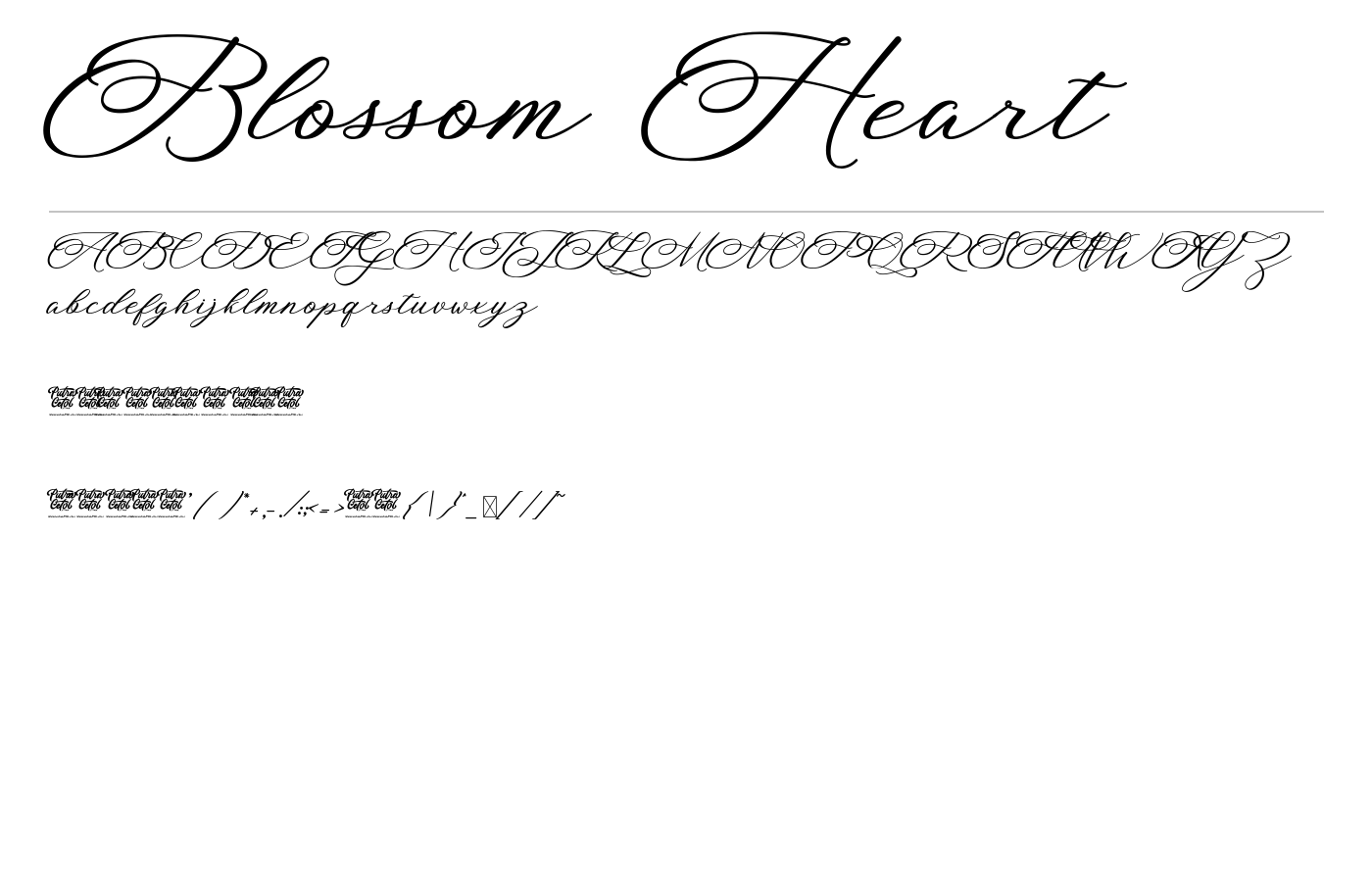
Blossom Heart is an elegant script font characterized by its delicate, flowing strokes and graceful flourishes, making it perfect for romantic or sophisticated designs. Its thin weight and high contrast between thick and thin lines create a refined, airy appearance, ideal for wedding invitations, luxury branding, and elegant headlines. This font’s ornate uppercase letters and smooth lowercase forms add a personal, handcrafted feel that enhances any project seeking a touch of charm and elegance.
Blossom Heart Font
About Blossom Heart Font
| Font family | Blossom Heart Font |